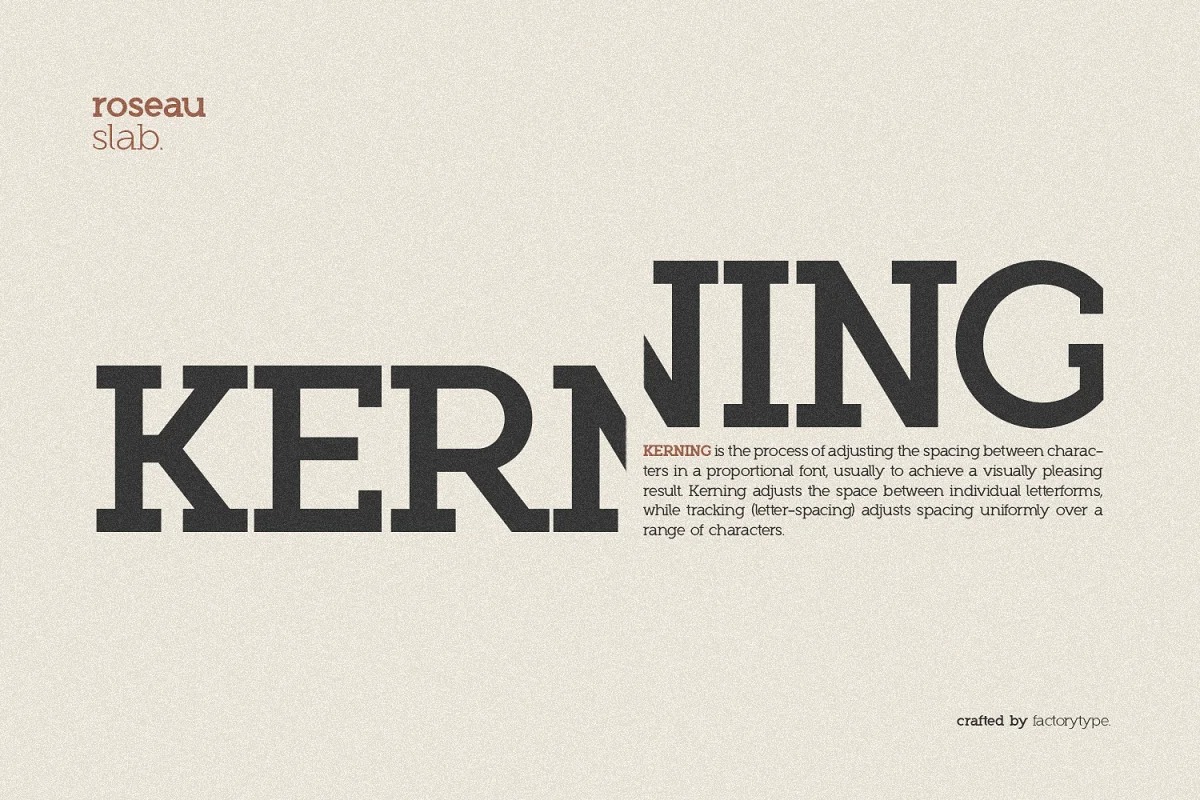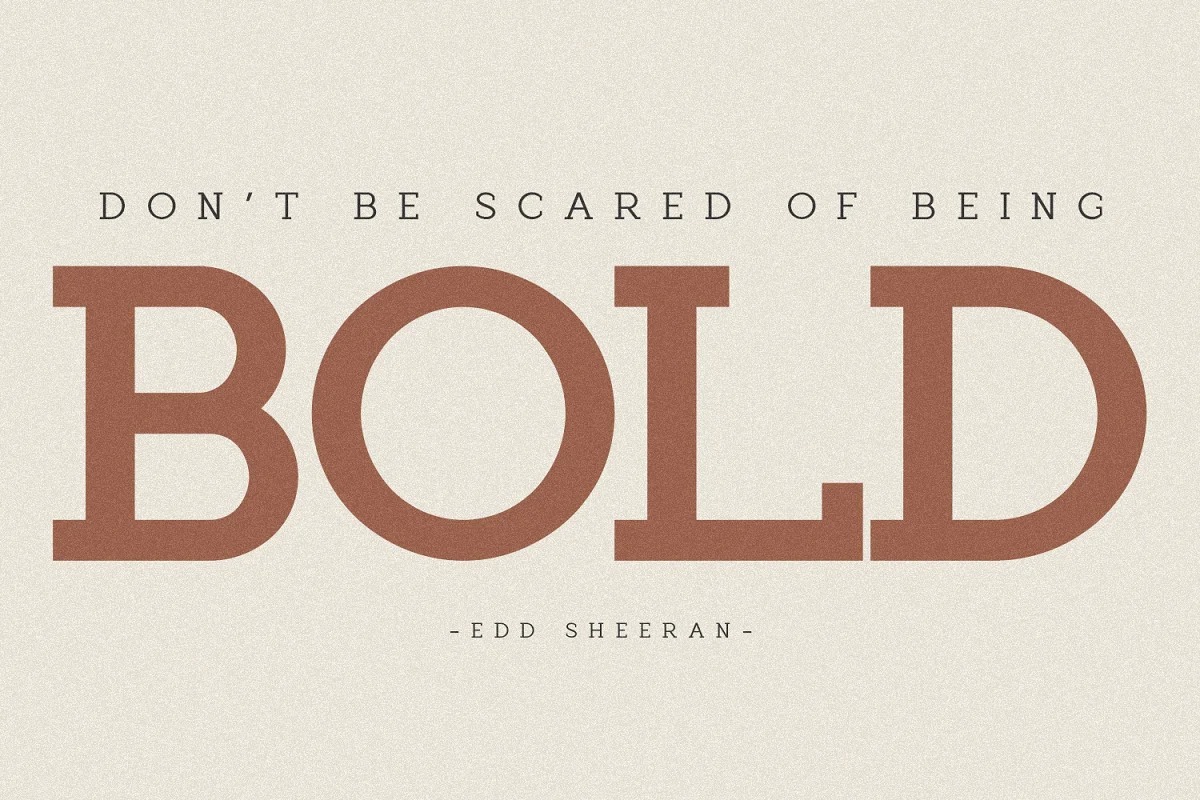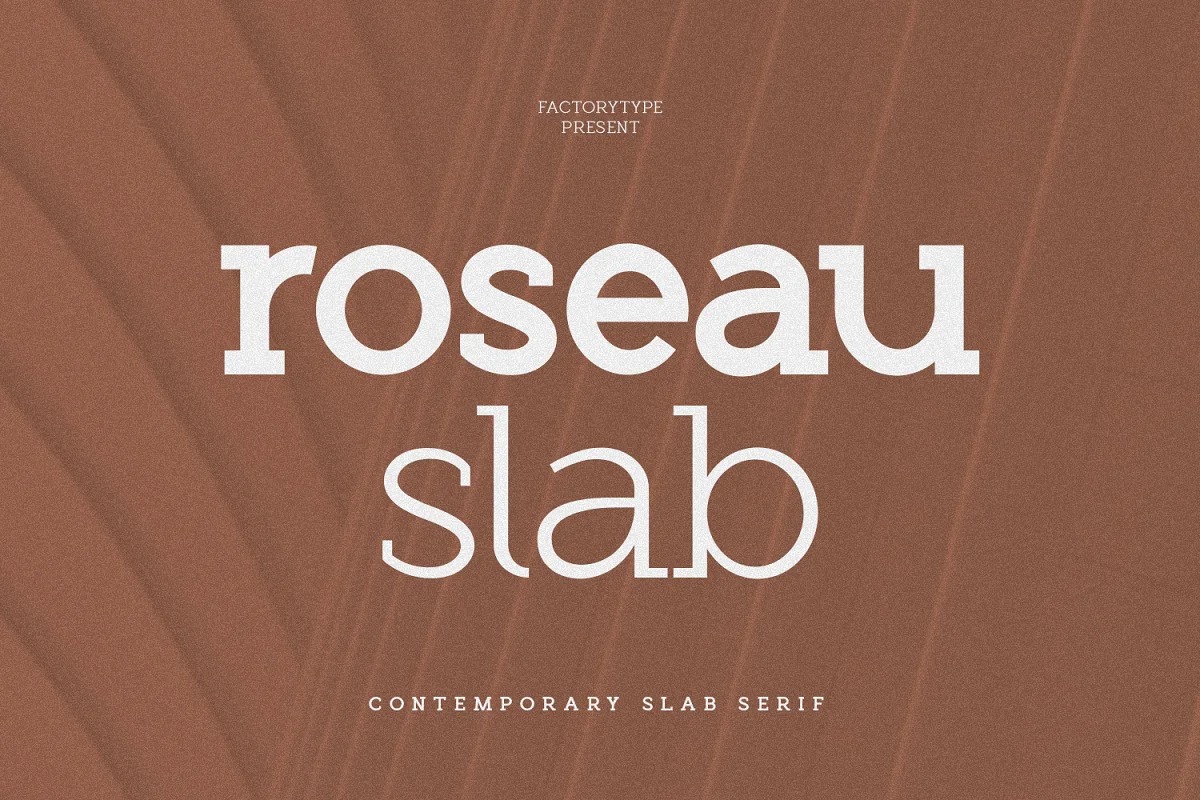
Roseau Slab Font
This font is a type of slab serif type with glyphs that is easy to read. The various weights provide a variety of options for determining the best typographic color for your project. This is an unrivaled sans serif for differentiating your headlines, branding visual identity, poster, logo, magazines, and so on.